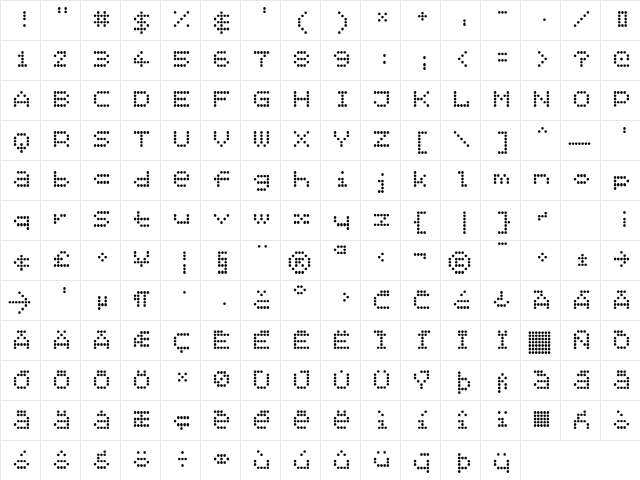
Semafor Plain Free Font
Semafor Plain
Complete Semafor Plain glyph index. Displaying only characters natively supported by Semafor Plain font.
Design Context for Semafor
Semafor is a composed and adaptable typeface that performs quietly and consistently across a wide range of design contexts.